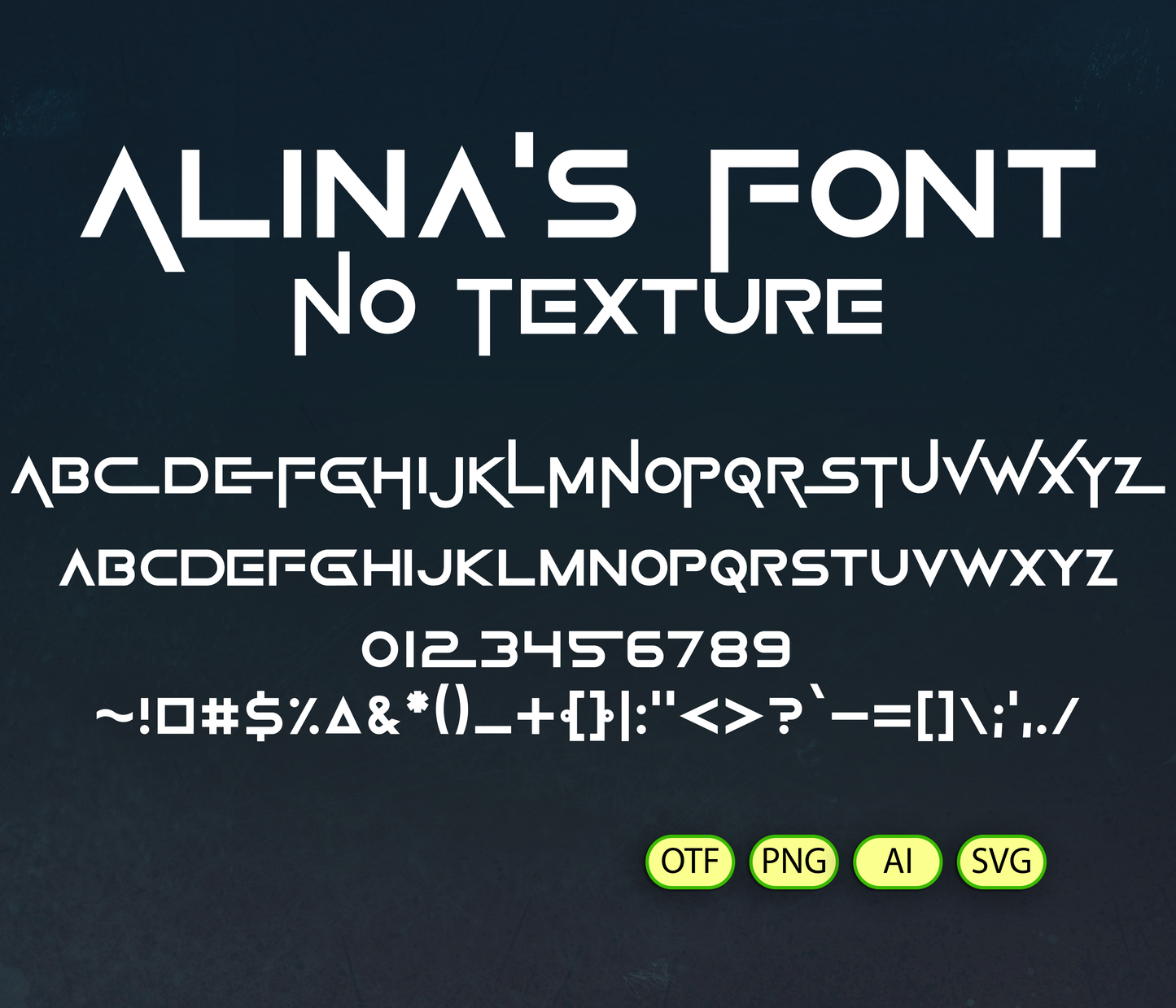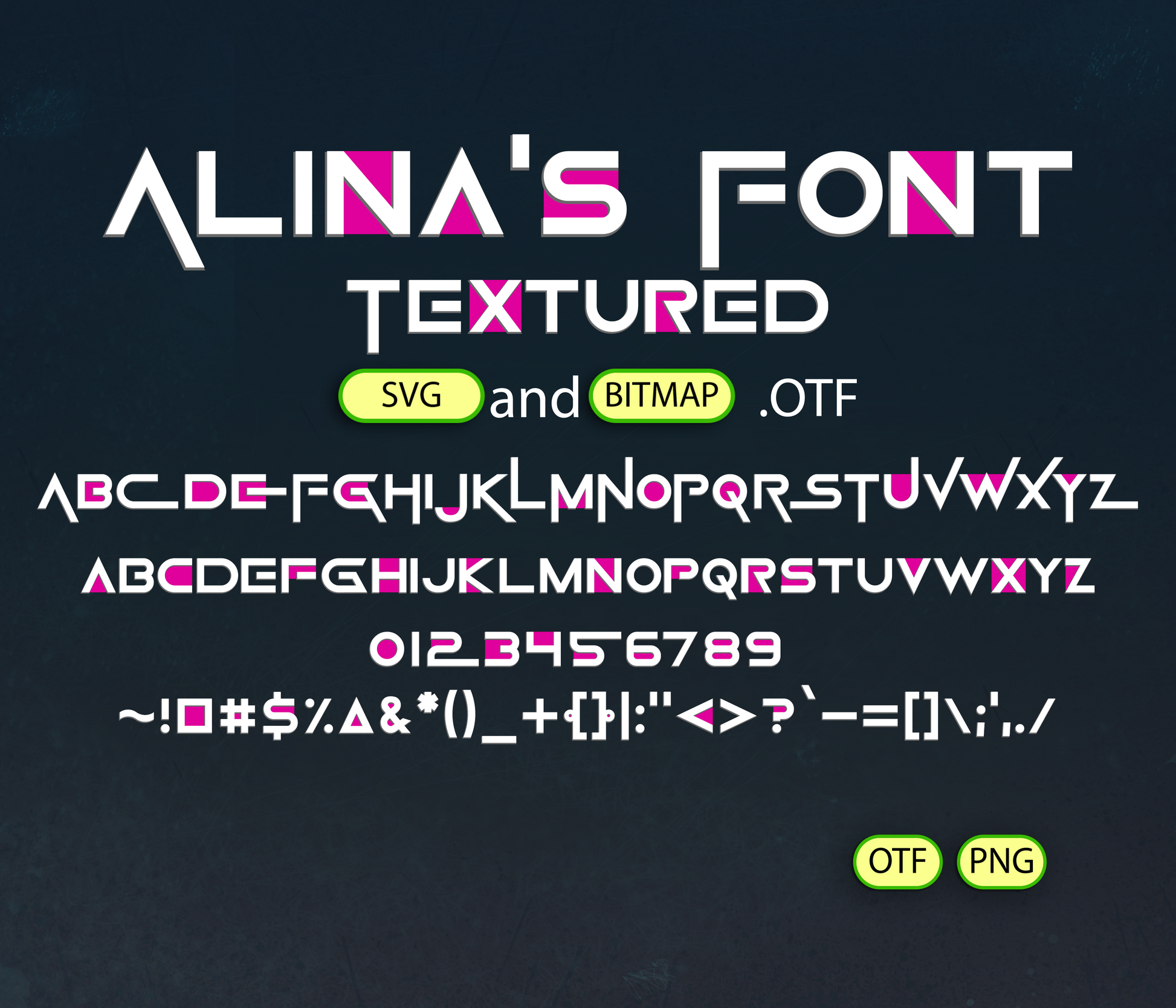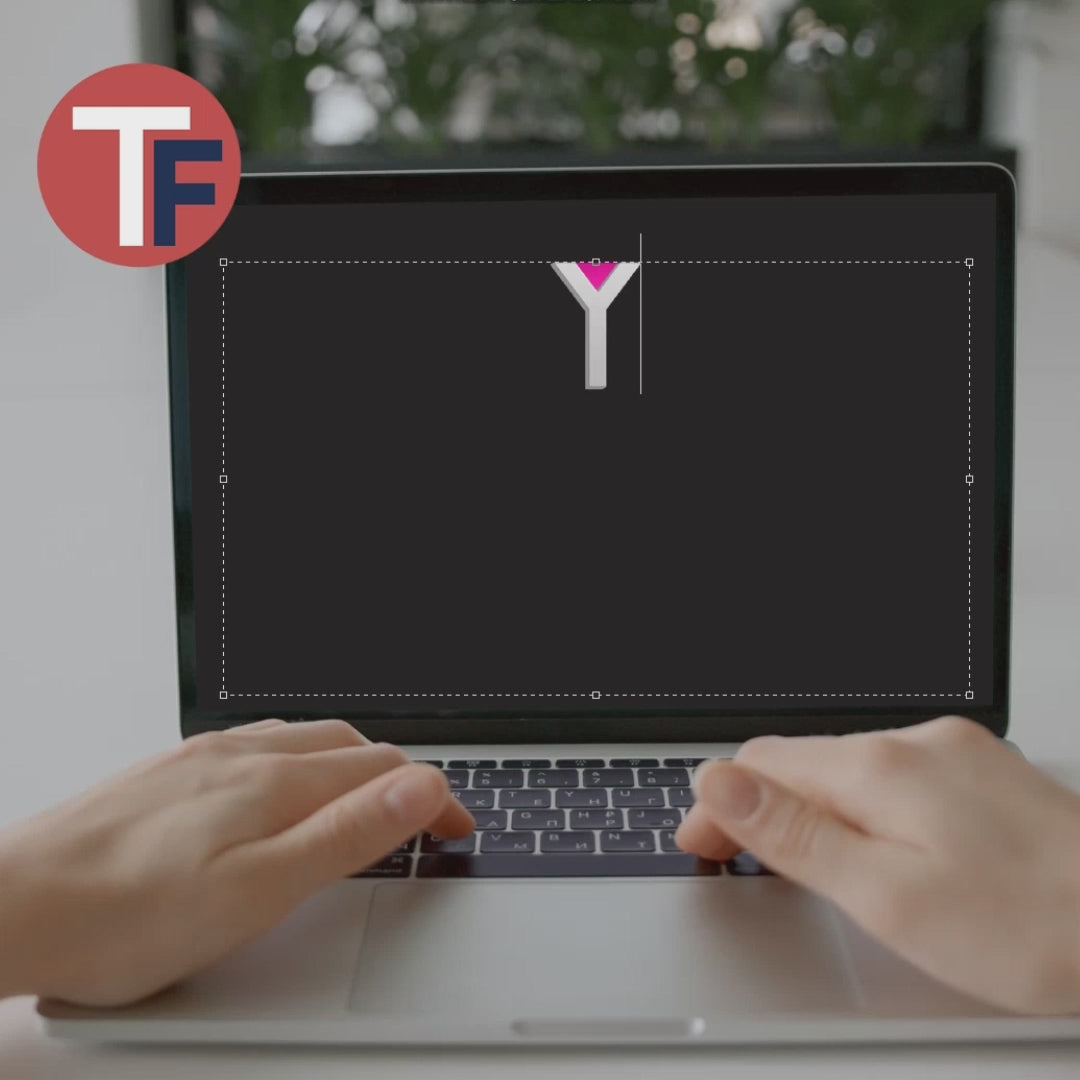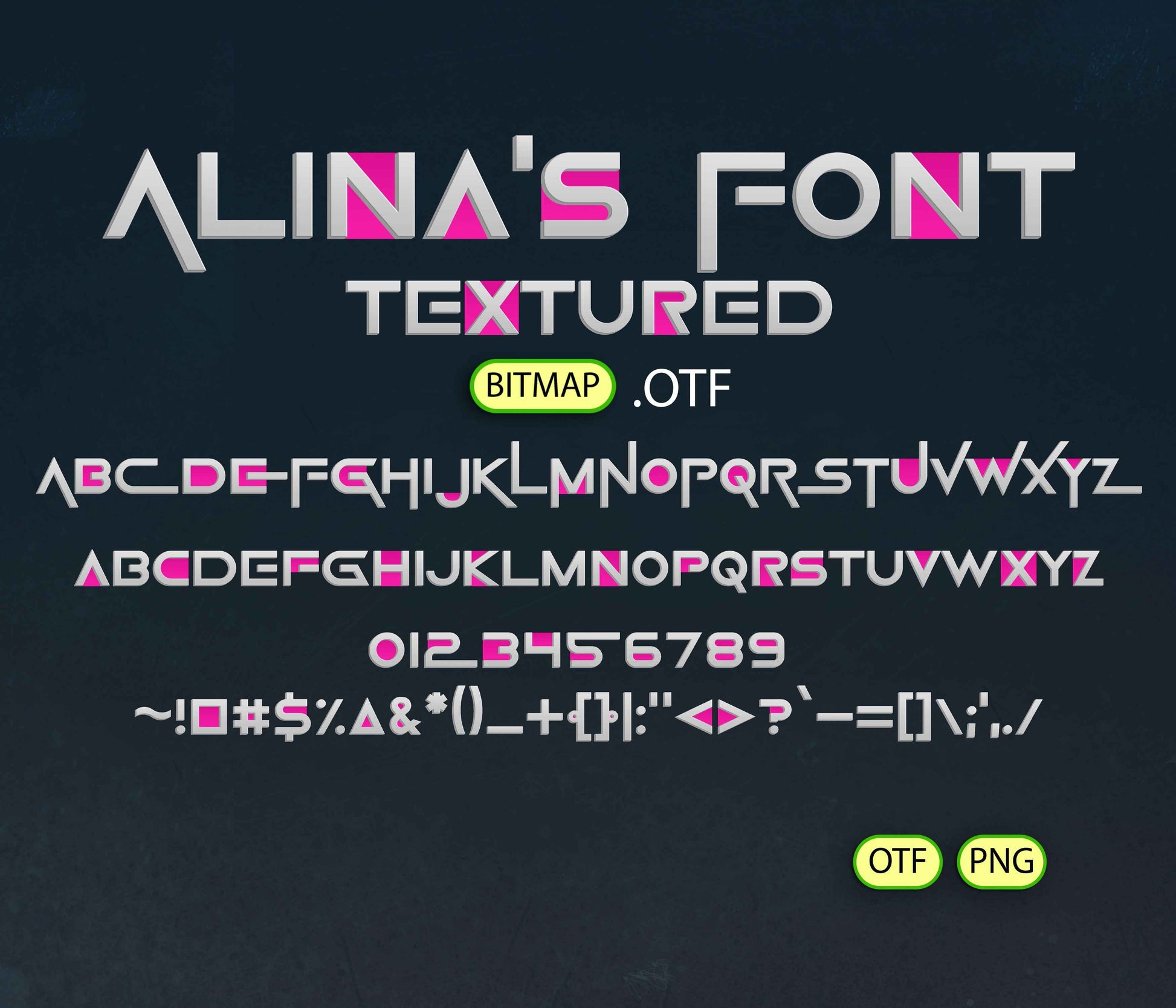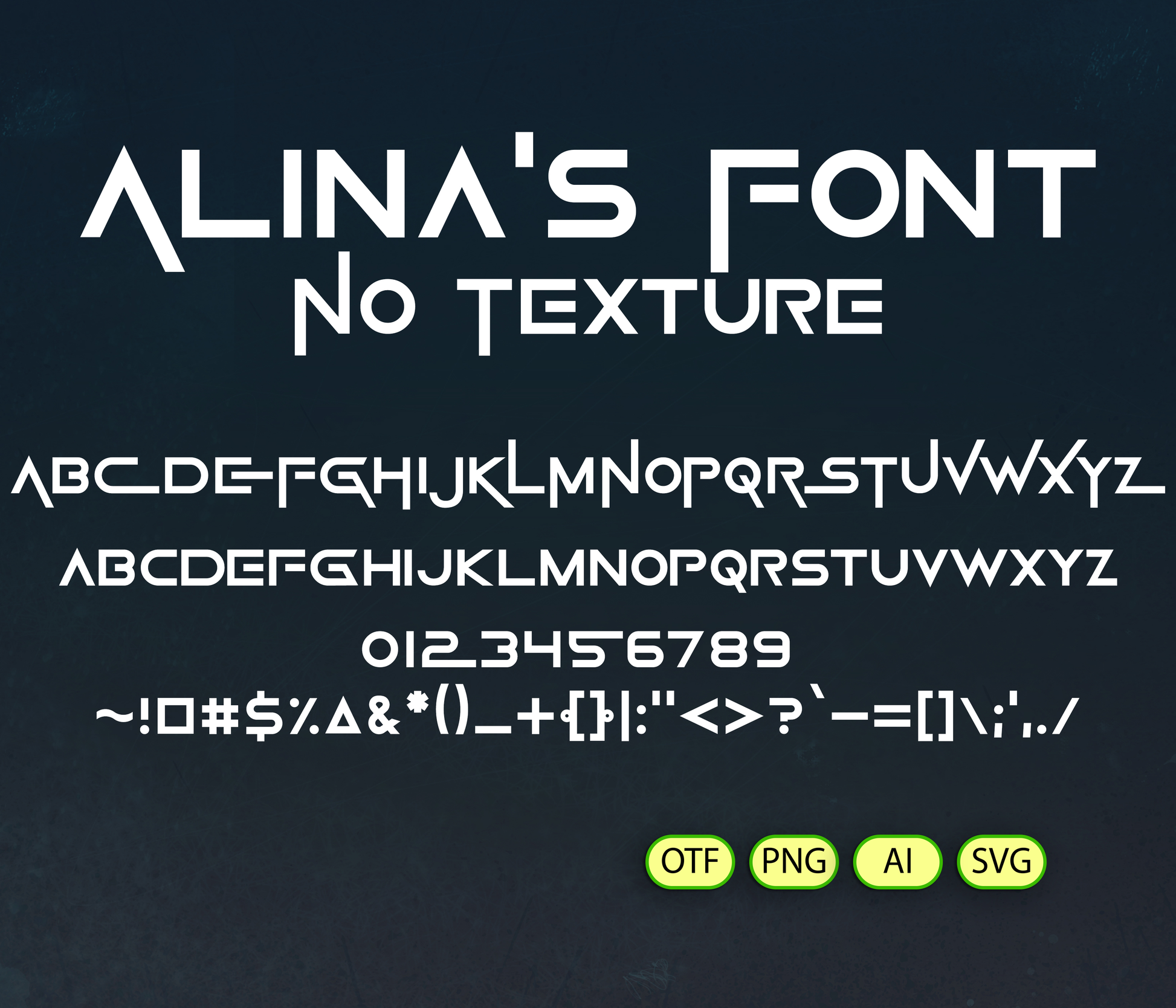
Survival Challenge Font Textured
Survival Challenge Font Textured Squid Game Font
Immerse yourself in the enigmatic world of a global sensation with our meticulously crafted Survival Challenge Colored Font. This exclusive typeface draws you into a high-stakes realm of suspense and strategy, where every letter is imbued with the vivid, heart-pounding essence of a thrilling competition series. Captivate your audience with vibrant aesthetics and compelling drama inspired by a hit show that has captivated viewers worldwide, and let your creations evoke intense emotion and psychological intrigue.
What Font is Survival Challenge Font?
Our Survival Challenge Colored Font replicates unique color schemes and character shapes seen in iconic graphics and on-screen text of a popular competition show. Beyond basic letters, this font also extends to numbers and symbols, providing a full suite of design possibilities that capture a captivating atmosphere.
Bring the thrill of the chase and the allure of high-stakes games into every design with the Survival Challenge Colored Font. Whether you're a die-hard fan, a casual viewer, or a designer in search of something extraordinary, this font adds that critical element of daring adventure to your creative arsenal.